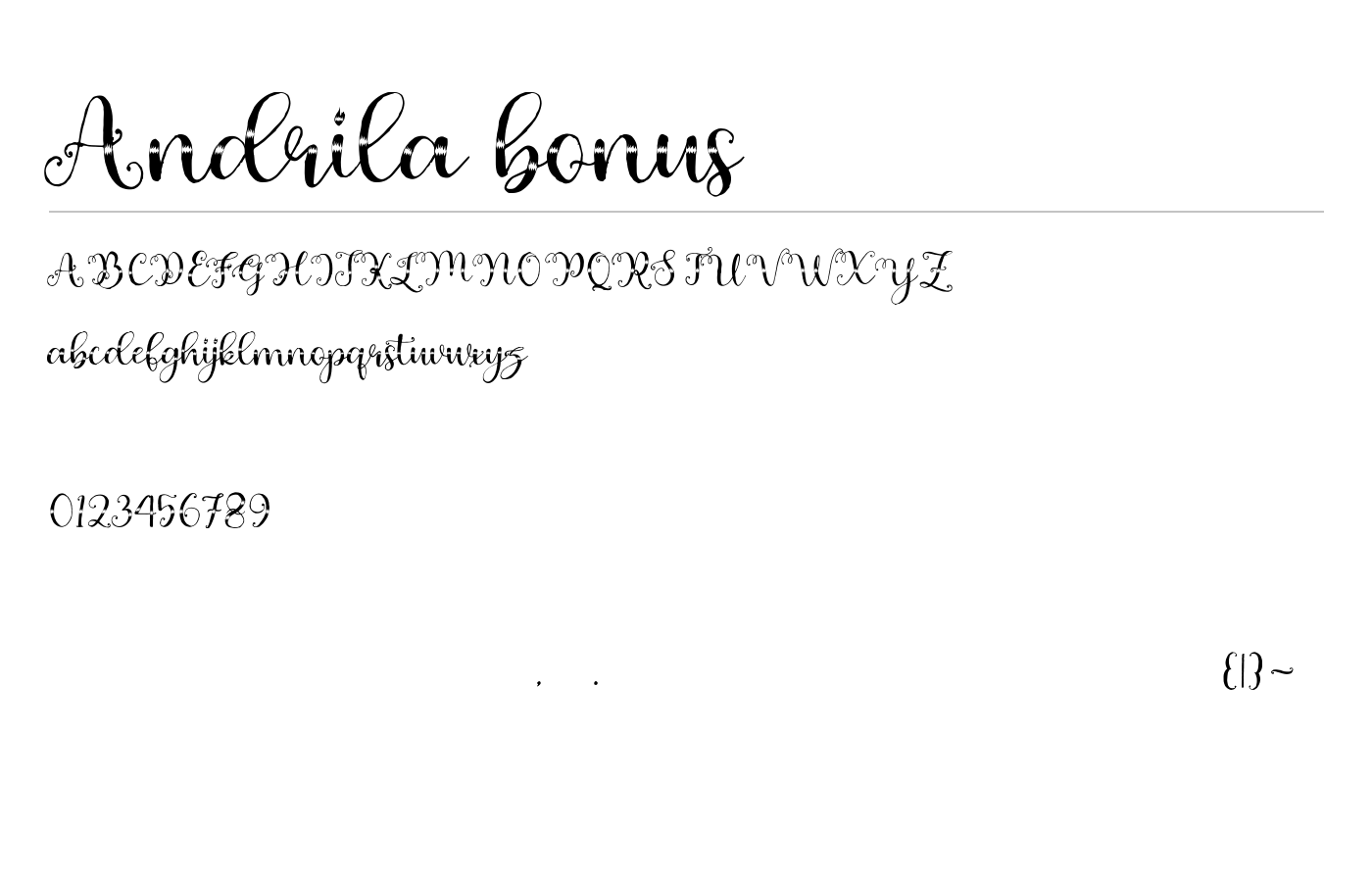
Andrila Bonus is an elegant script font with delicate, flowing strokes and charming ornamental curls that bring a sophisticated and whimsical feel. Its lightweight, graceful letterforms with a moderate x-height make it perfect for invitations, branding, and decorative headlines where a touch of romance and refinement is desired. This font works best in designs needing a stylish, feminine flair that captures attention with its artistic, handwritten vibe.
Andrila bonus Font
About Andrila bonus Font